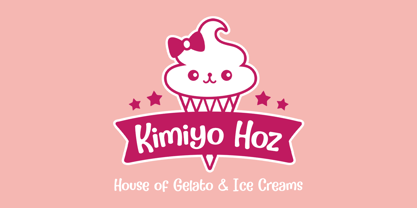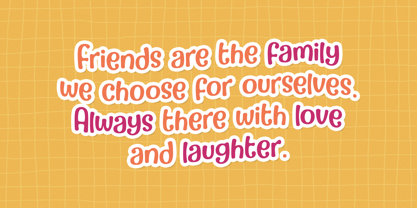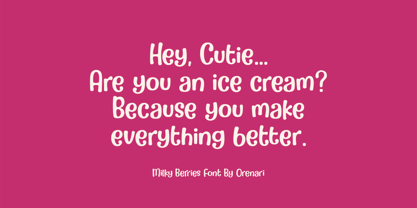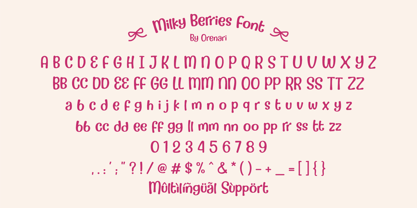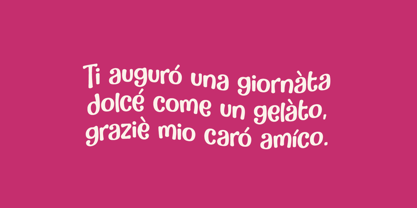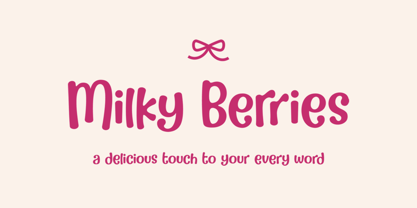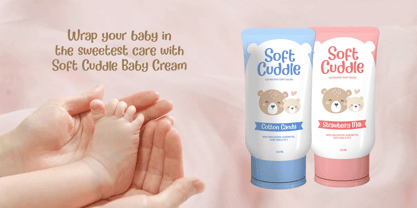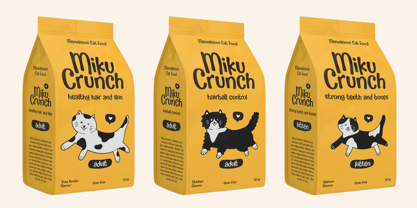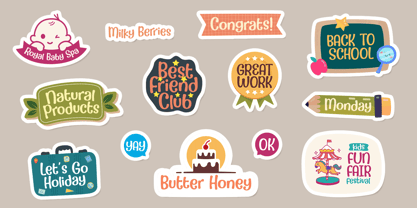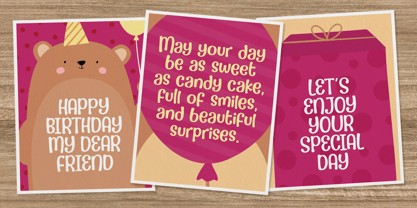
Milky Berries
by Orenari
The Milky Berries Font Family was designed by Lia Wijayanti and published by Orenari. Milky Berries contains 1 styles. More about this family
Add a sprinkle of sweetness to your designs with Milky Berries, a playful handwritten font that bursts with personality. This font is inspired by the lighthearted charm of sweet desserts and the cheerful joy of colorful berries mixed into a creamy treat. Just like the name suggests, Milky Berries is designed to feel fresh, soft, and inviting, with rounded strokes and bouncy letter forms that instantly brighten up any project.
Every curve of Milky Berries was created to capture a sense of playfulness and warmth. The letters are soft and rounded, almost like they were hand-drawn with a smooth brush dipped in pastel colors. This makes the font perfect for adding a friendly and approachable tone to your typography. Whether you want to convey happiness, joy, or simply a touch of cuteness, Milky Berries delivers the right vibe in a natural and effortless way.
The inspiration behind this font comes from the comforting world of sweets and handmade creations. Imagine the coziness of a small café menu decorated with doodles, the charm of a handwritten greeting card, or the inviting look of packaging for homemade desserts. That’s the feeling Milky Berries brings to your designs. It carries a playful handwritten spirit that feels authentic, casual, and personal — as if it was written by a friend with care and love.
Milky Berries is versatile enough to shine in many different contexts. Use it for cozy café menus, cheerful invitations, greeting cards, bold social media posts, wedding stationery, or branding projects that need a fun handwritten touch. It also works beautifully for product packaging, posters, book covers, and lifestyle designs that need a soft, joyful handwritten style. The rounded letters and smooth flow make it ideal for projects aimed at children, families, or anyone who loves lighthearted and playful aesthetics.
Inside the font package, you will find everything you need to make your designs stand out. Milky Berries includes a complete set of uppercase and lowercase letters, numbers, punctuation marks, and cute ligatures that make your text look naturally handwritten. The font is also equipped with multilingual support, allowing you to share its charm across different languages and regions. This makes it a perfect choice for global projects where you want to maintain the same friendly, warm, and inviting feeling no matter where your audience is.
Beyond its technical features, Milky Berries is a font that tells a story. It is more than just a typeface — it is a tool to express joy, creativity, and positivity. Every word you set in this font feels like it carries a smile, making your designs more engaging and approachable. Whether you are a professional designer working on branding or a hobbyist creating personal projects, Milky Berries will be a delightful addition to your collection.
Let Milky Berries bring charm, sweetness, and a playful handwritten personality into your designs. With its joyful style, versatile use cases, and carefully crafted details, this font is ready to spread happiness in every project you create.